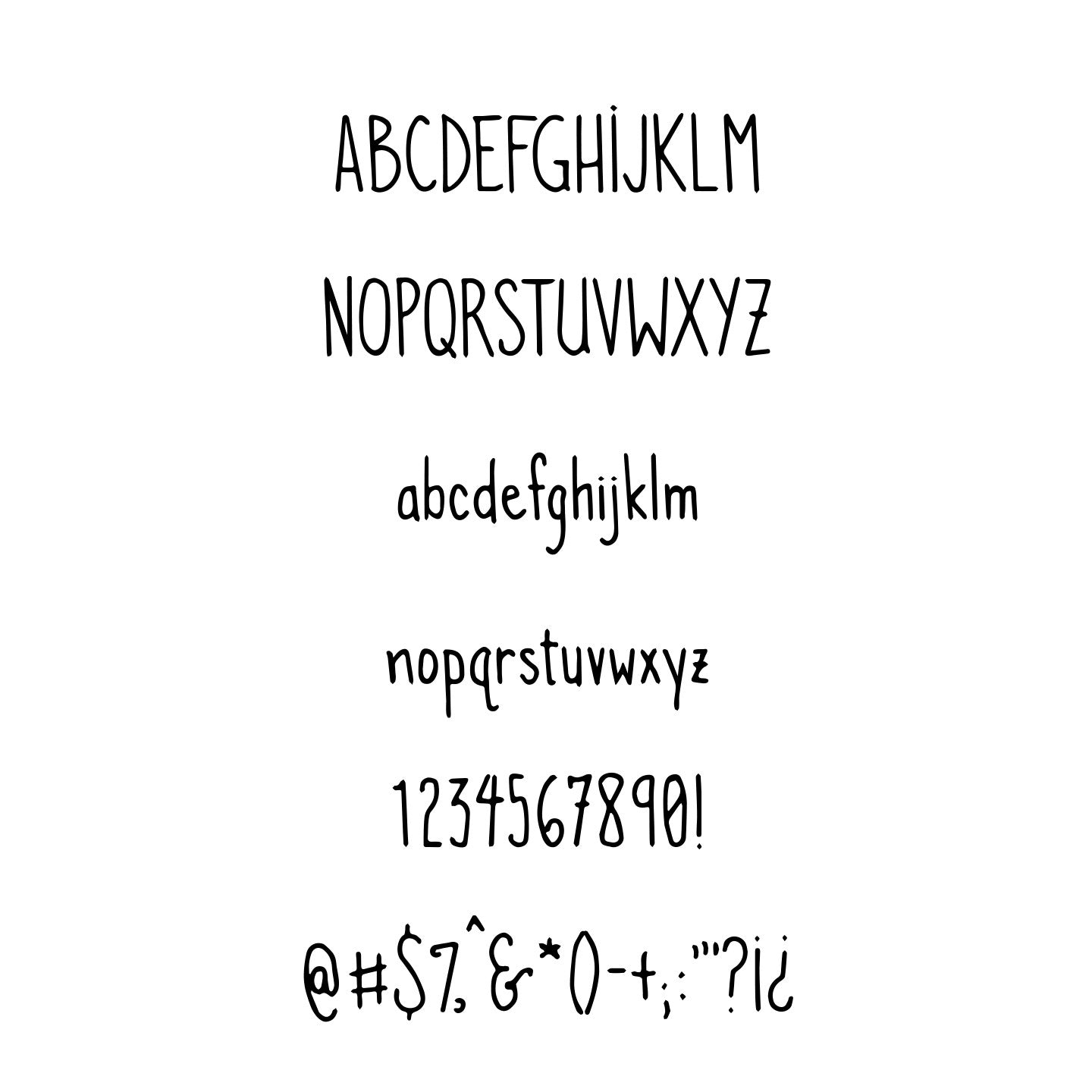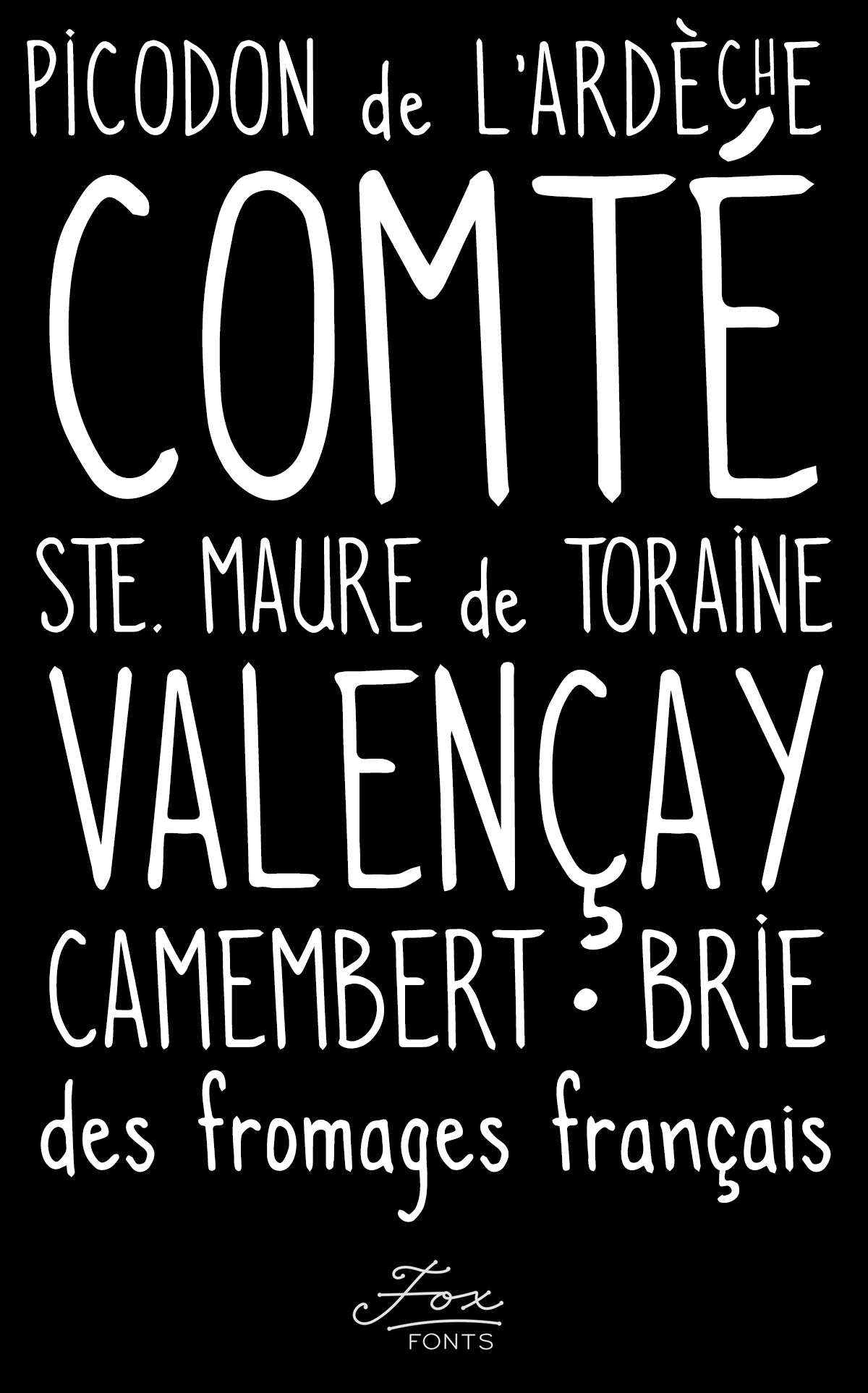
Emmerin
A compressed thin font that remains readable at small sizes, Emmerin was inspired by European chalkboard writing, which balances style with efficient use of space. Wide spaces and inconsistent kerning give this typeface a realistic handwritten effect, and it also can be easily styled to resemble neon signage.
Designed by April Carter Grant